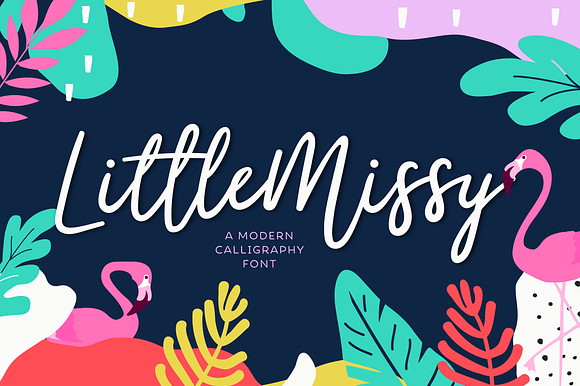
Littlemissy A Modern Script Font
Littlemissy A Modern Script Font by typefairy is a font selected for branding, posters, packaging, typography.
Why Littlemissy A Modern Script Font is worth a look
Littlemissy A Modern Script Font by typefairy fits naturally into Branding, posters, packaging, typography.